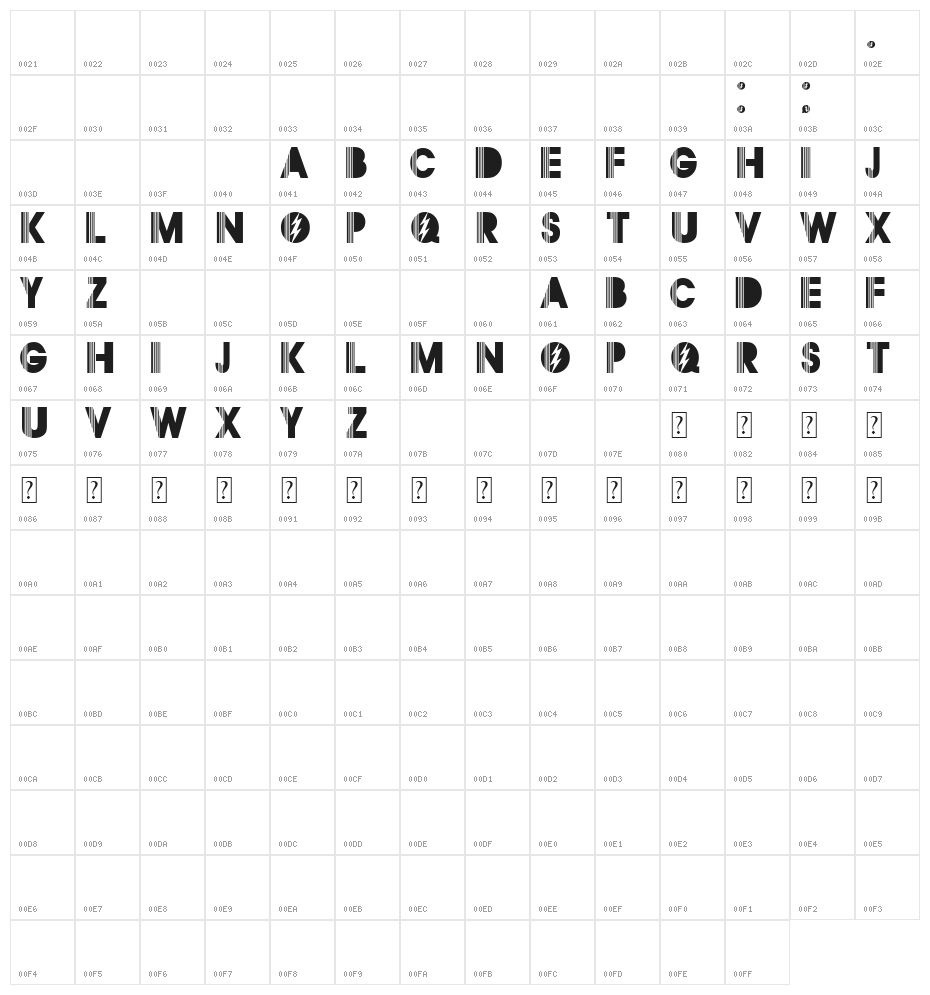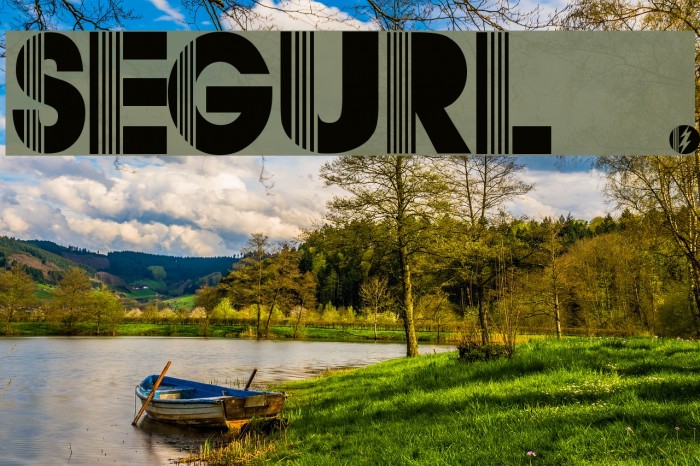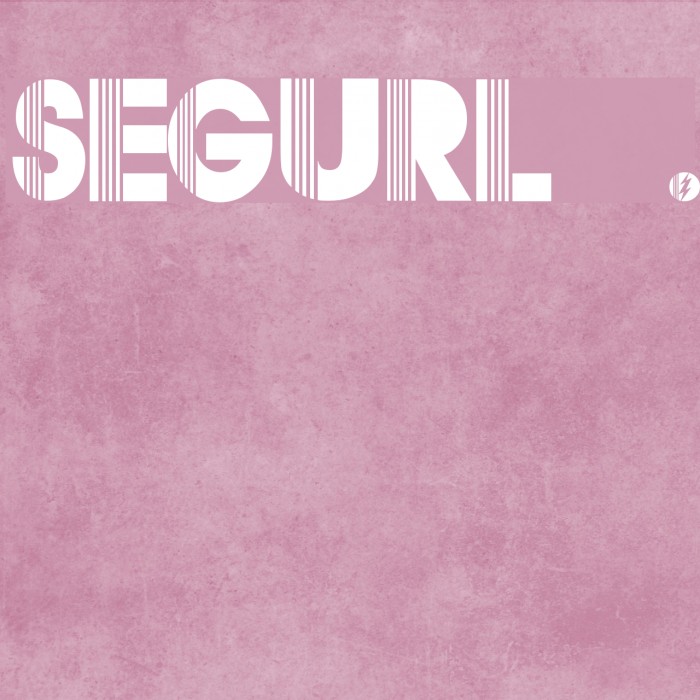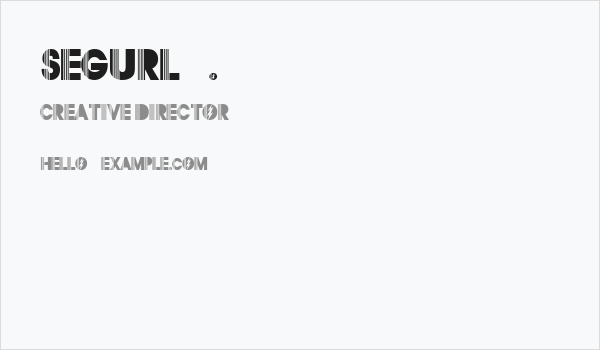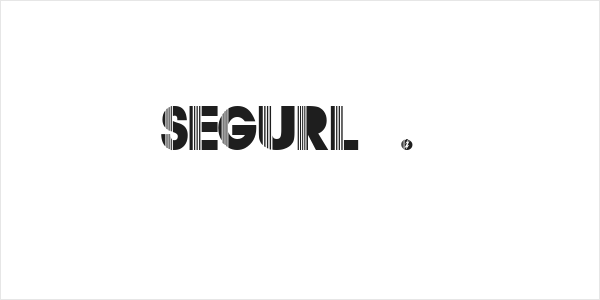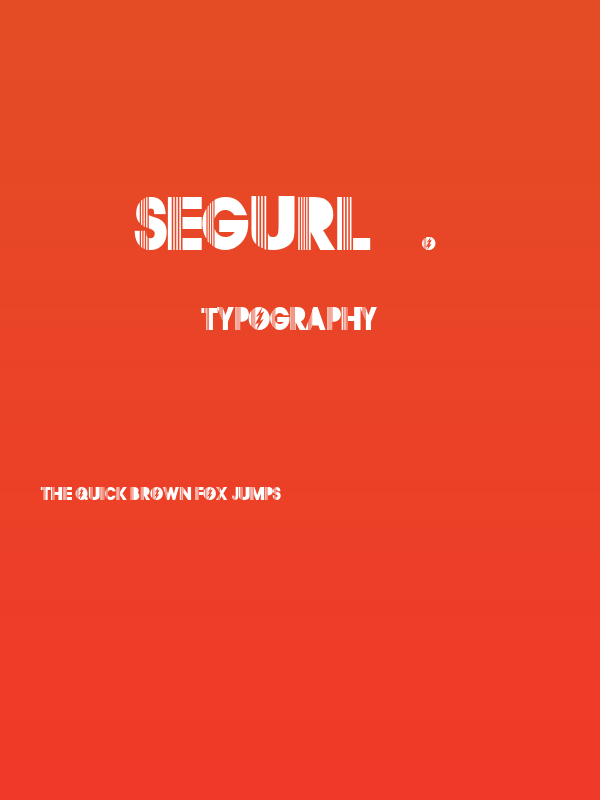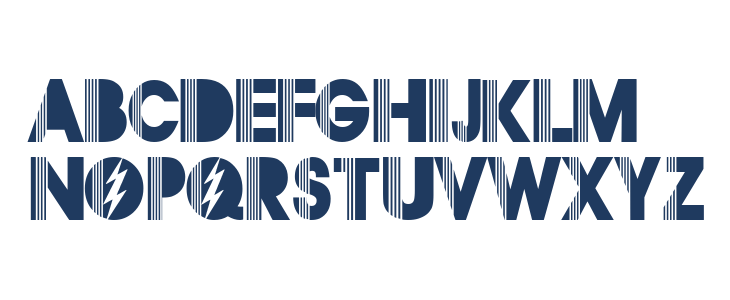
Segurl 1.0 Font
Segurl 1.0 Description
This font features a bold and striking design with a unique striped pattern running vertically through each letter. The uppercase letters are characterized by a strong geometric structure, with sharp angles and clean lines. The inclusion of a lightning bolt motif within the 'O' adds a dynamic and energetic element, making it stand out. The font's boldness and decorative elements make it ideal for attention-grabbing designs. Its modern and edgy style is perfect for projects that require a strong visual impact.
Proposed ProjectsIdeal for branding, posters, music album covers, and any project needing a bold, modern look.